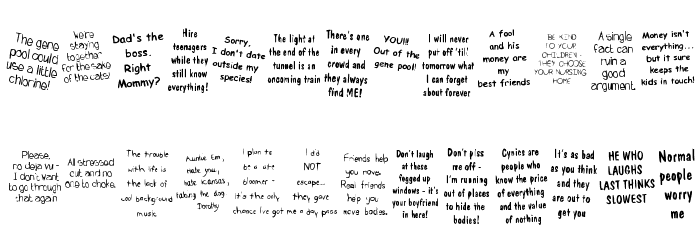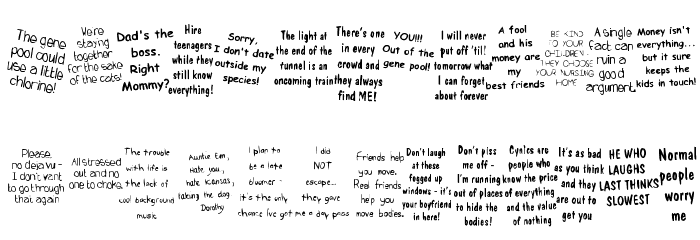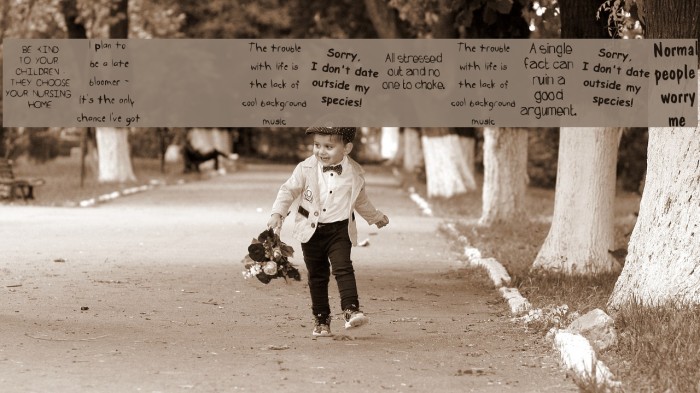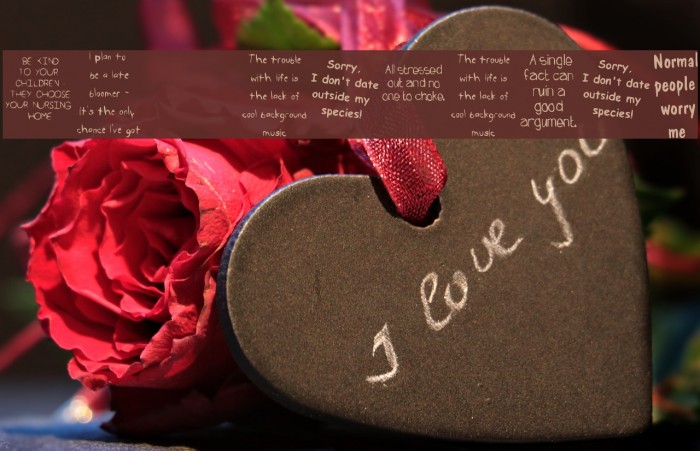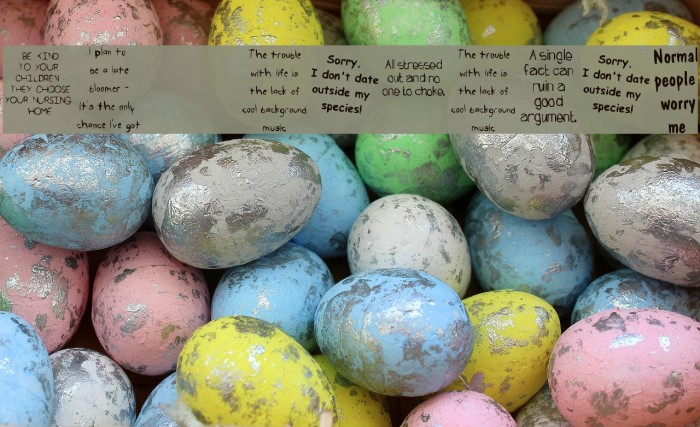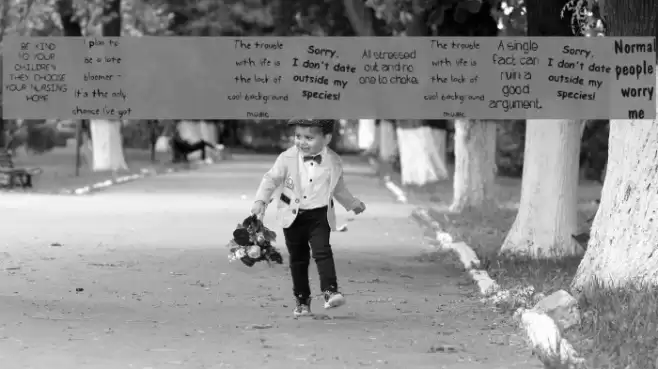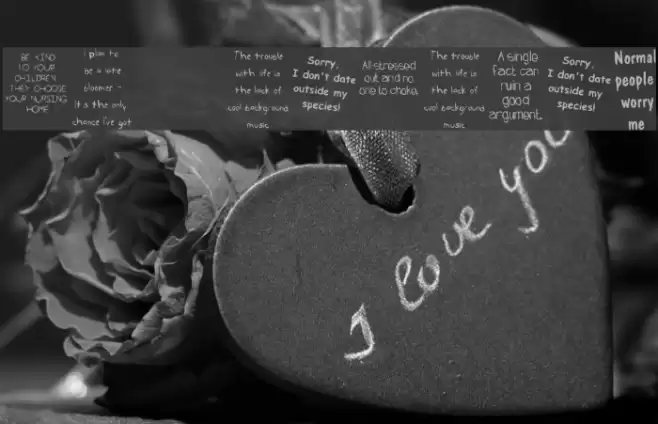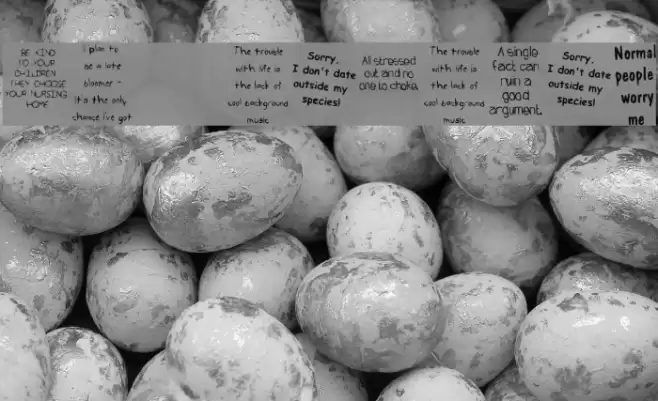
KR Peoplez Font
This font features a playful and quirky style with a handwritten appearance. The characters have a casual, informal look, with uneven baselines and varying stroke widths that give it a dynamic and lively feel. The letters are slightly slanted, adding to the whimsical nature of the font. The uppercase and lowercase letters are distinct, with the uppercase being more prominent and bold. The numbers and special characters maintain the same playful style, making the font suitable for creative and fun projects. The overall design is reminiscent of doodles or notes, perfect for conveying a sense of spontaneity and creativity.
A playful, handwritten font with a quirky and dynamic style.
- Proposed Projects: Ideal for children's books, casual invitations, greeting cards, and creative posters.
- Use Case: Headlines, Logos, Creative projects